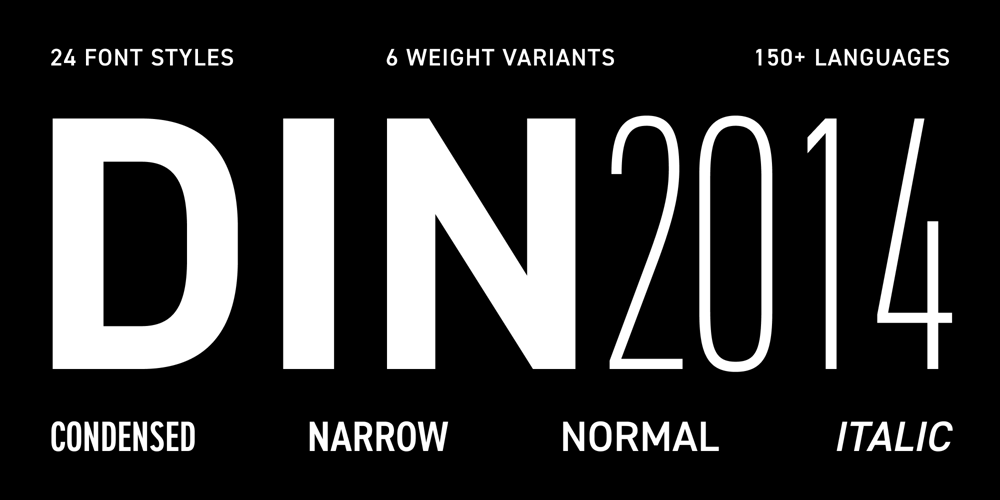
DIN 2014 Font Family was designed by Vasily Biryukov and published by ParaType. DIN 2014 contains 24 styles and family package options. DIN shines through as a defining typeface of the modern grotesque genre and is in fact one of the most popular fonts used today. Born in Germany during the early 20th century and perfected by the Deutsches Institut für Normung in the 1930s, the font was initially designed for railways, road signs, house numbers, and general signage. Its unique nature—one of simplicity and conciseness with a touch of roughness—comes from its geometric, practical, and space-saving design.DIN-inspired fonts are now employed far beyond their original applications, however, and are of great appeal in the corporate world—with contemporary versions well-suited for continuous text and user interfaces, specifically. DIN (more mechanistic than, say, Helvetica) can appear either cool and detached or warmly industrial, depending on the application at hand. It’s this versatility, combined with its simplicity and clarity, that makes it a lauded designer fave.DIN 2014 specifically stands out with several unique features such as a range of narrow styles, straight vertical segments in lowercase (not just uppercase) ovals, and the option to switch between oblique and italic styles via a stylistic set. The core DIN 2014 typeface family, meanwhile, includes three different width variations (Regular, Narrow, Condensed) and 24 styles: six upright weights (ranging from Extra Light to Extra Bold) based on DIN Mittelschrift, six matching italics, six narrow styles proportionally between DIN Mittelschrift and DIN Engschrift, and six condensed options.Each and every DIN 2014 style features an alternative stylistic set for lowercase characters with an italic design (Latin a, e + Cyrillic а, е, т, ц, и, and й), giving users the ability to choose between oblique and italic in italics and to use straightened italic characters in upright styles as necessary. Each style also includes a set of pictograms that match the font’s weight.DIN 2014 supports over 150 languages, including Extended Latin and Cyrillic scripts, and boasts two complementary versions that enhance its versatility: DIN 2014 Stencil and DIN 2014 Rounded. The typeface was designed by Vasily Biryukov and released by Paratype in 2015. The set of Condensed styles was added by Alexander Lubovenko and Isabella Chaeva in 2022.Primary font characteristics are as follows:- 3 widths: Regular, Narrow, Condensed- 24 styles, each with 630+ glyphs- 14 OpenType features, including stylistic alternates- Extended Latin and Cyrillic supportIf you need font files in different formats or would like to try this font, just drop us a line at info@paratype.net, and we’ll make it happen.